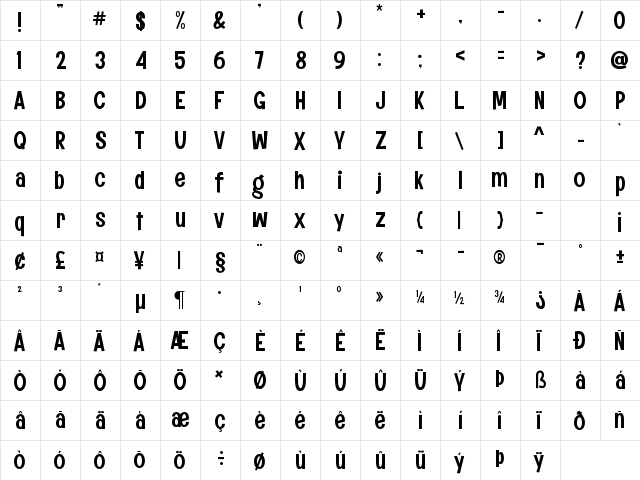
Komix Eighties Regular
| Foundry | Figuree Studio |
| Designer | Toni Dzulham |
Design Context for Komix Eighties Typeface
Komix Eighties is a composed and adaptable typeface that performs quietly and consistently across a wide range of design contexts.